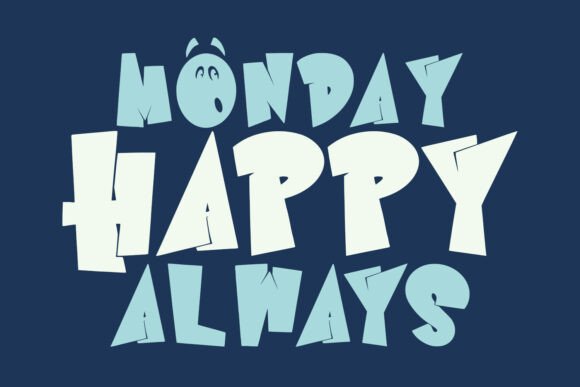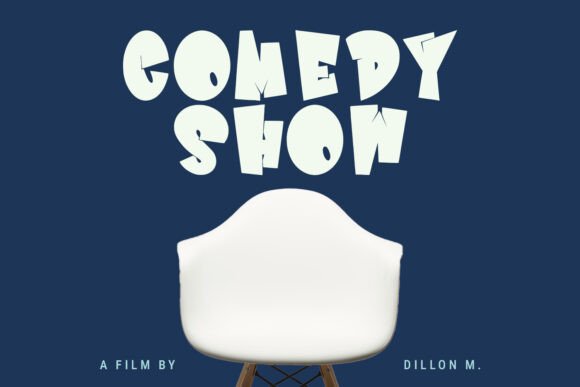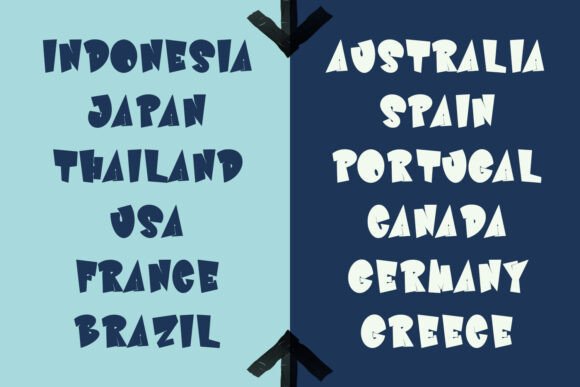
Introduction to Booroz Font
Booroz is a modern comic display font.
Masterfully designed to become a true favorite, this font has the potential to bring each of your creative ideas to the highest level .
Key Features of Booroz Font
Why Choose Booroz Font?